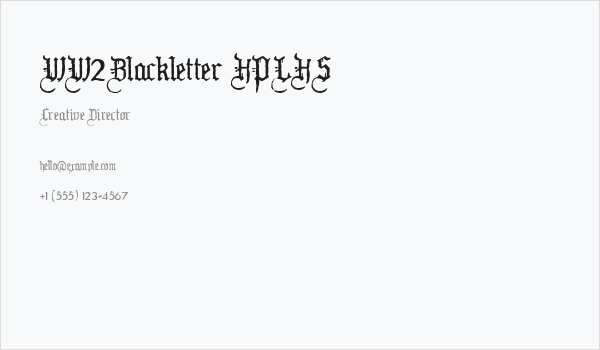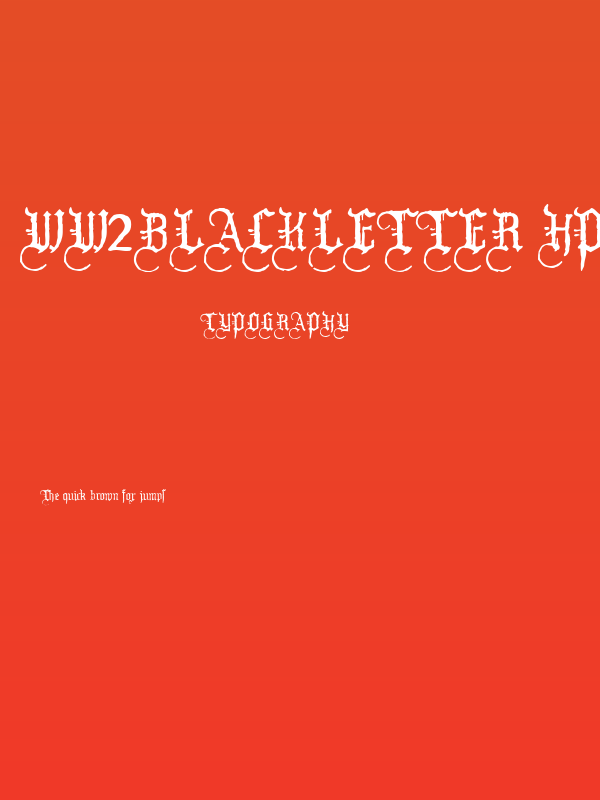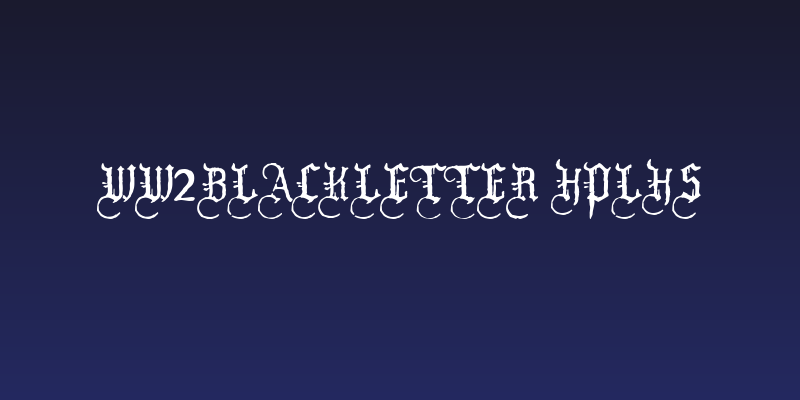
WW2Blackletter HPLHS Font
WW2Blackletter HPLHS Description
This font features a traditional blackletter style, reminiscent of medieval script with its intricate and ornate design. The uppercase letters are characterized by their sharp, angular forms and decorative flourishes, while the lowercase letters maintain a consistent gothic appearance. The numerals are bold and distinct, fitting seamlessly with the overall aesthetic. Special characters are equally ornate, adding to the font's historical and dramatic feel. This typeface evokes a sense of antiquity and formality, making it suitable for projects that require a touch of historical elegance.
| Proposed Projects | Ideal for historical documents, fantasy-themed designs, book covers, and decorative certificates. |